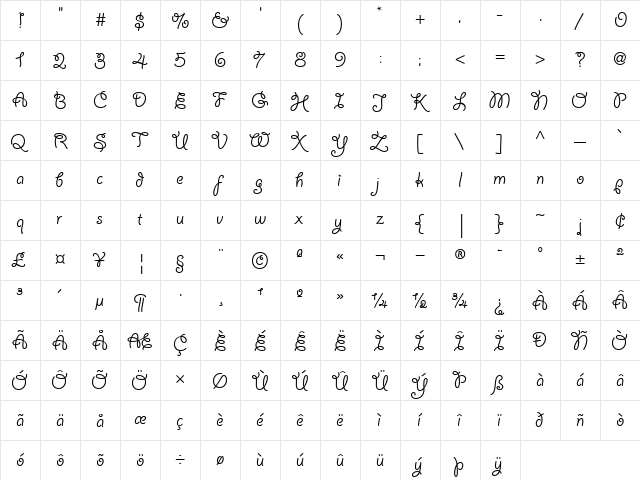
Roper Regular
Design Context for Roper Typeface
Roper is a composed and adaptable typeface that performs quietly and consistently across a wide range of design contexts.